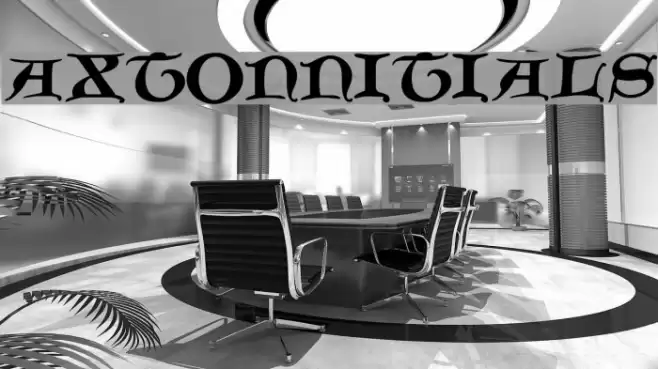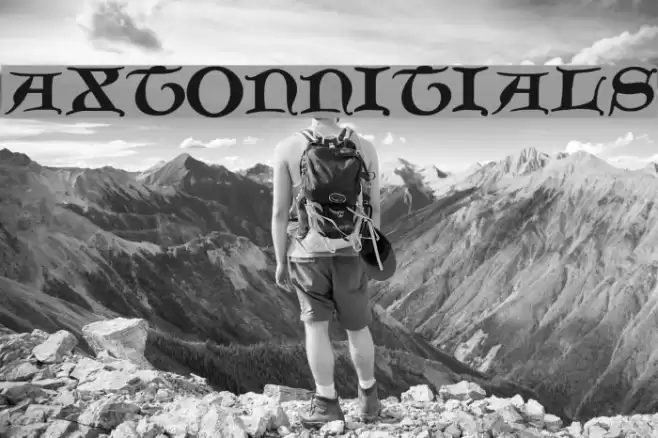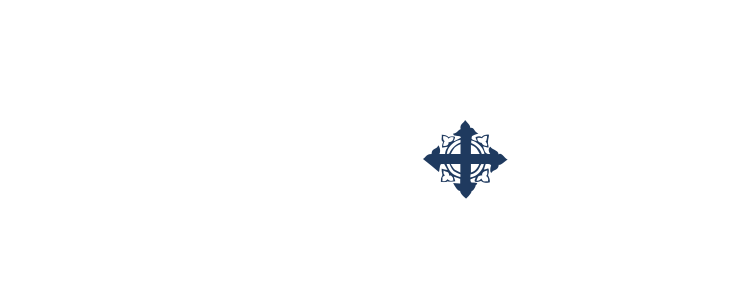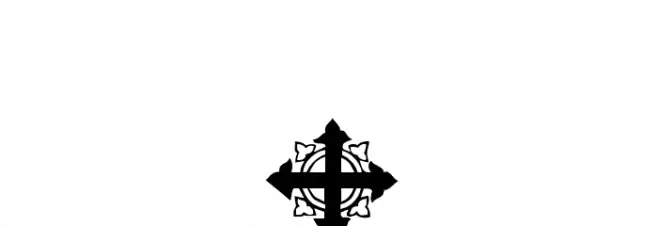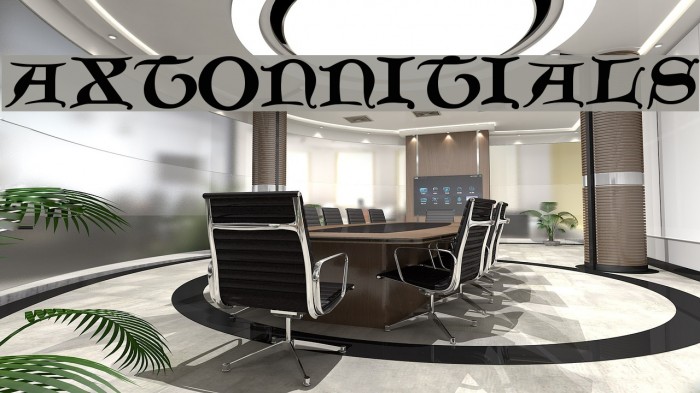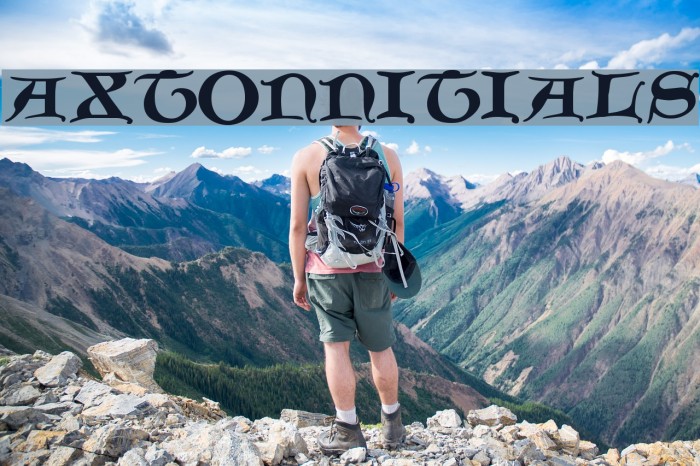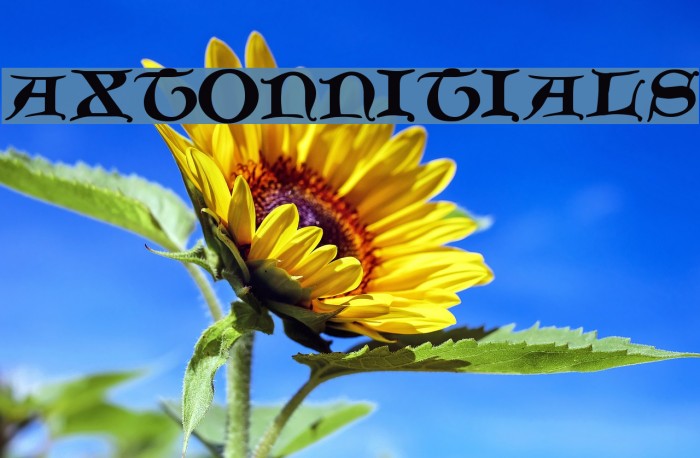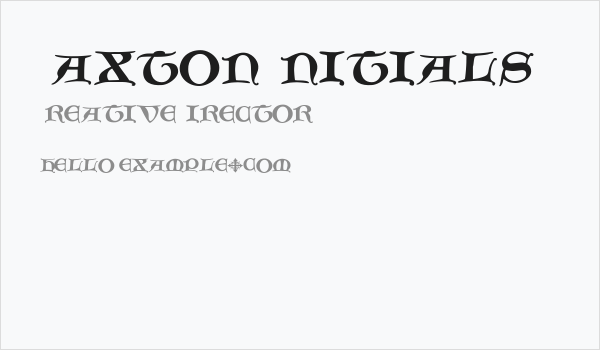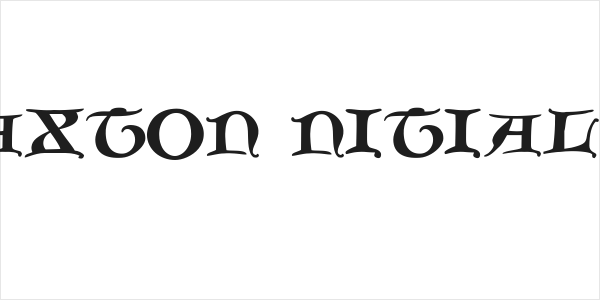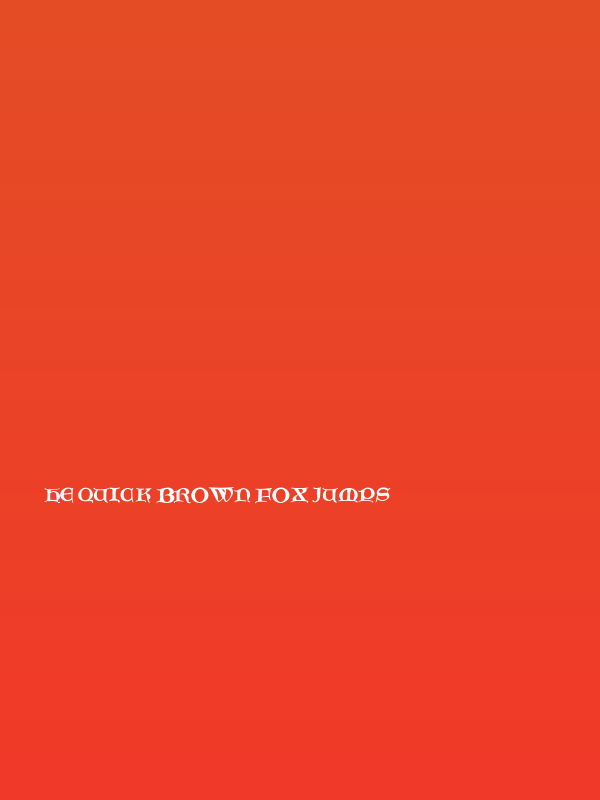
Caxton-Initials Font
Caxton-Initials Description
This font features a distinct and ornate style reminiscent of medieval script, characterized by its intricate and decorative elements. The letters are bold and have a strong presence, with elaborate serifs and flourishes that give them a historical and formal appearance. The design is highly stylized, with each character exhibiting unique embellishments that enhance its visual appeal. The overall aesthetic is reminiscent of Gothic or Blackletter typefaces, often used in traditional or ceremonial contexts. The font's intricate details and bold strokes make it suitable for projects that require a touch of elegance and historical significance.
An ornate, medieval-style font with bold, decorative elements and intricate serifs from Uncategorized fonts.
- Proposed Projects: Ideal for use in formal invitations, certificates, book covers, or any project requiring a historical or elegant touch.
- Overall Style: Vintage